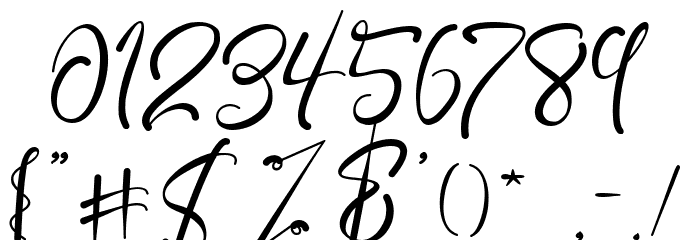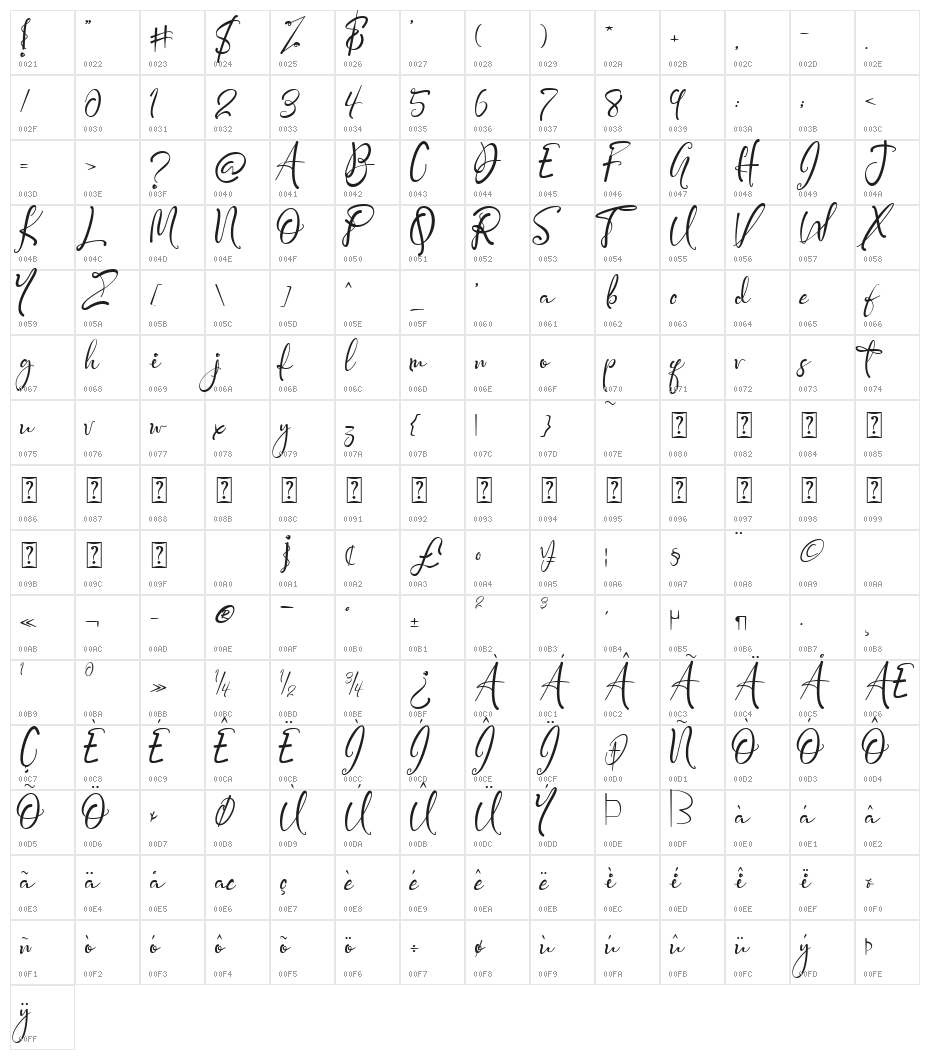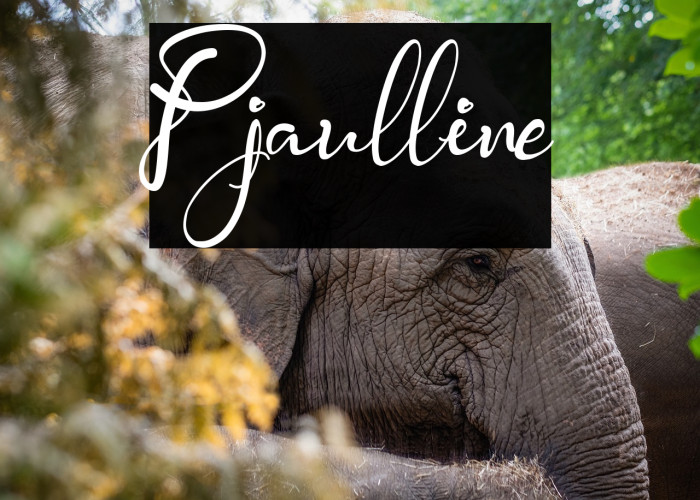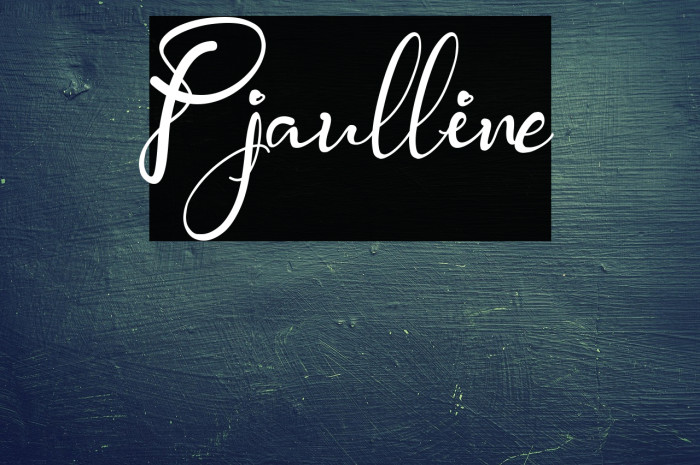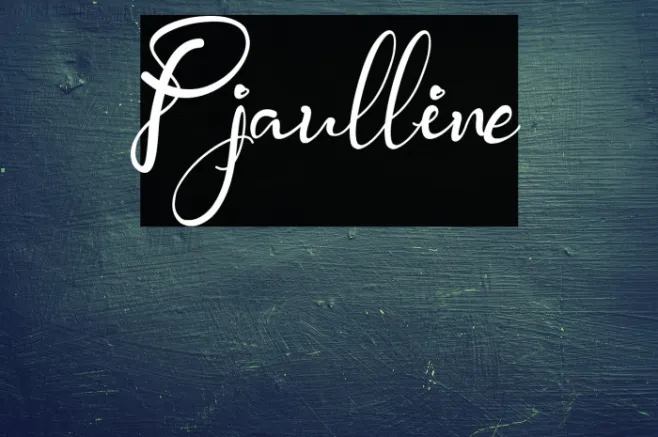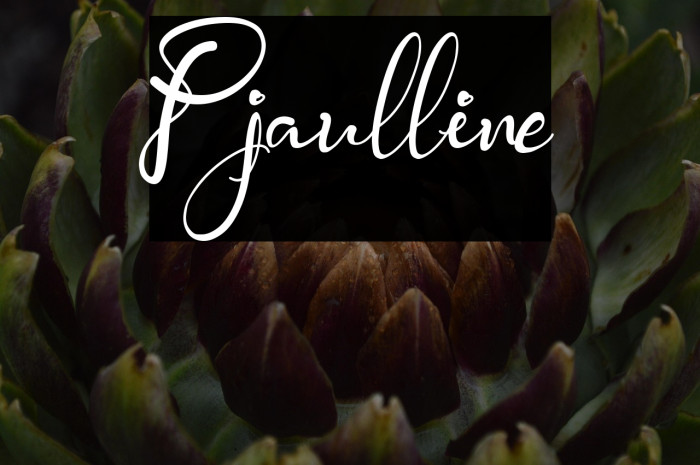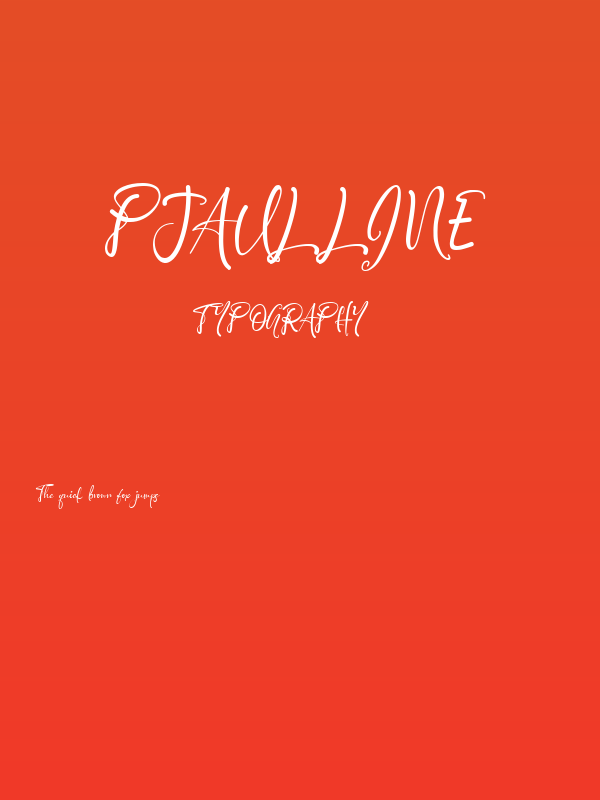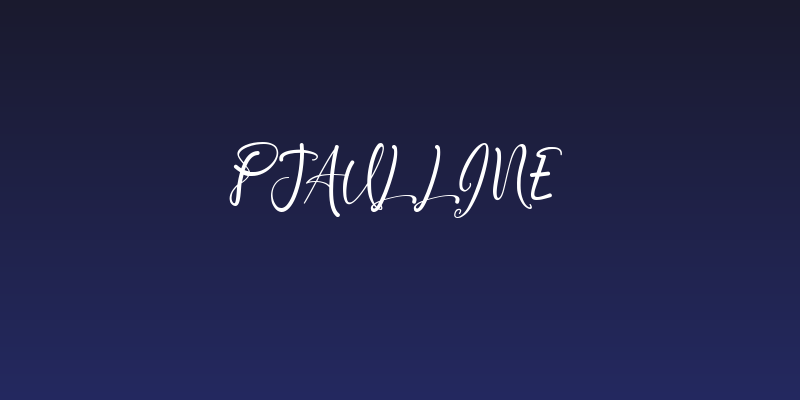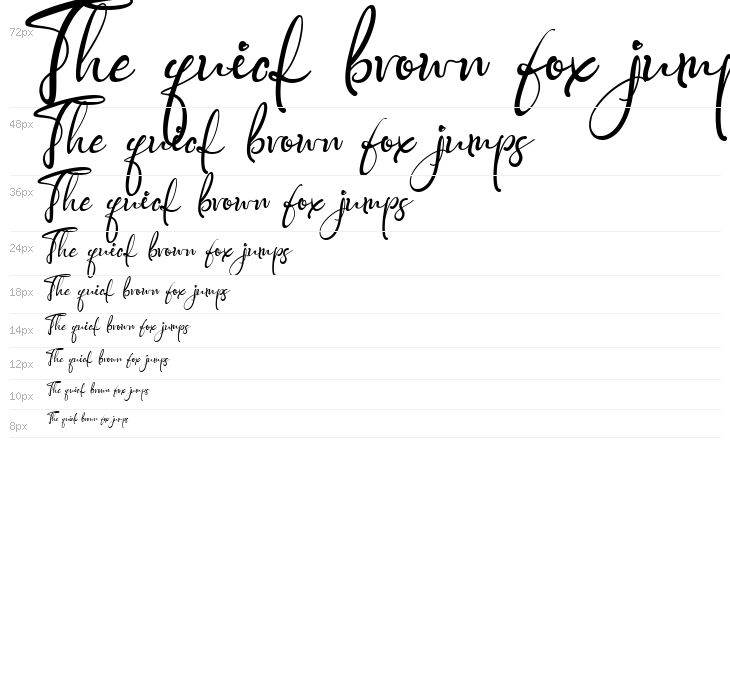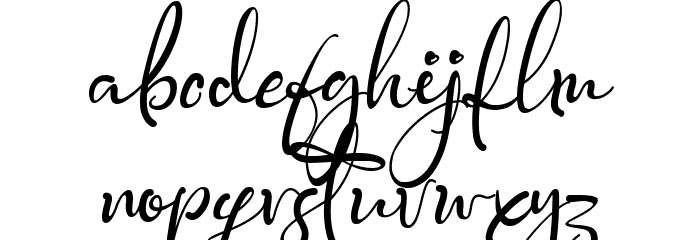
Pjaulline Font
Pjaulline Description
This font exudes a lively and elegant script style, characterized by its flowing, cursive letterforms. The uppercase letters are tall and graceful, with sweeping curves and loops that give a sense of movement and fluidity. The lowercase letters maintain a consistent style, featuring delicate strokes and a slight slant, enhancing the handwritten feel. Numbers are designed with similar elegance, ensuring a cohesive appearance across all characters. Special characters are thoughtfully integrated, maintaining the overall aesthetic. This font is perfect for adding a personal touch to any design, combining sophistication with a playful edge.
| Proposed Projects | Ideal for wedding invitations, greeting cards, branding, and elegant packaging. |